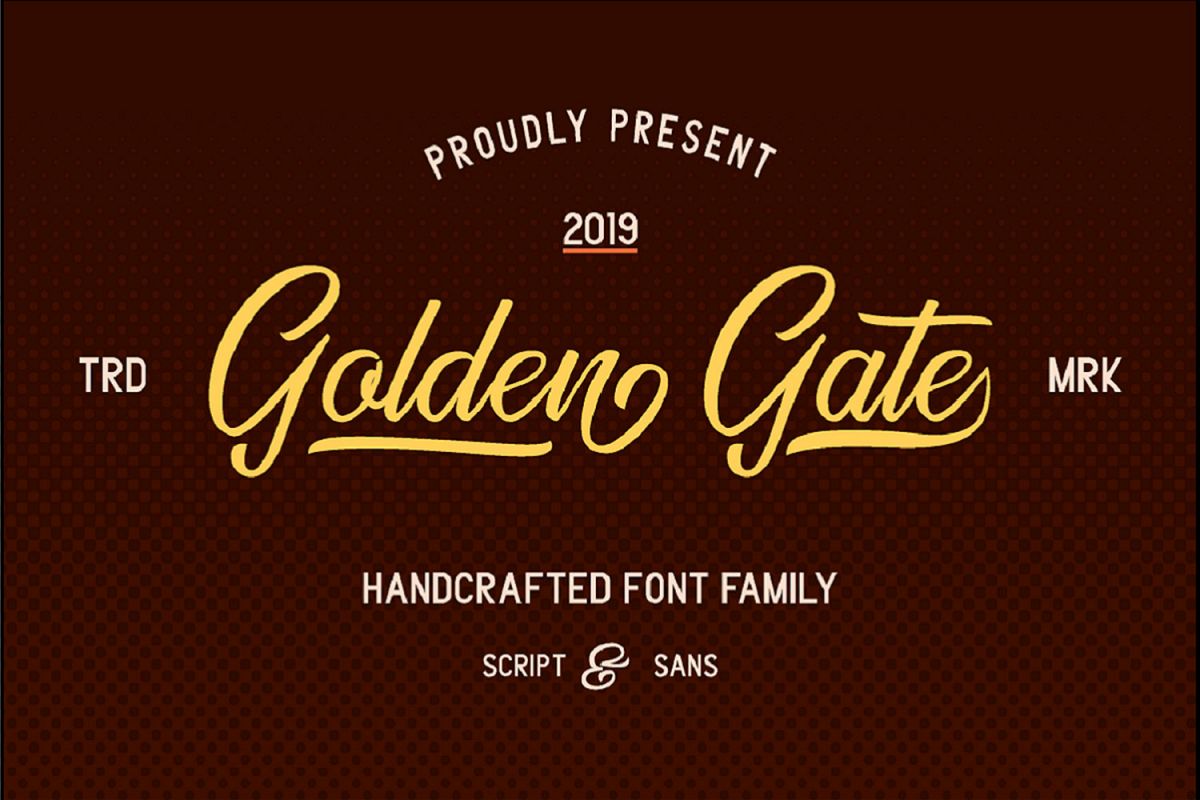
Golden Gate | Handcrafted Font Familyy
Handcrafted font, it’s include script and sans font, perfectly pairing font, and there some features of OpenType, that makes the font better. This font is created for your creative supply like logos, poster, quote, t-shirt design and much more.
Feature:
-OpenType features
-script and sans fonts